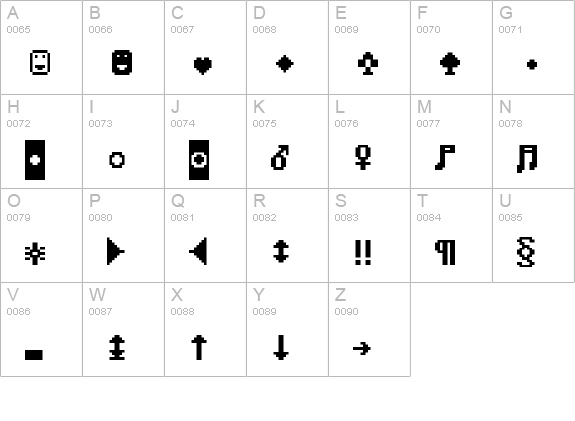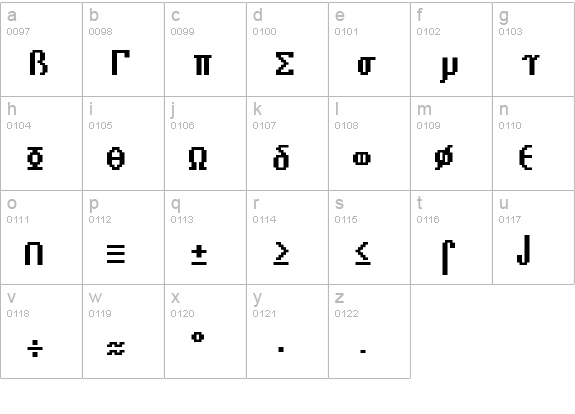
Video Terminal Screen Low Chars Font Details
The Video Terminal Screen Low Chars font is a versatile and stylish typeface that adds a touch of nostalgia to any project. With its sleek, low-resolution design, it hearkens back to the days of classic video game consoles and computer terminals. This font is perfect for those looking to evoke a sense of retro charm or to bring a unique visual element to their designs. The Video Terminal Screen Low Chars font is not only visually appealing, but it is also incredibly functional. Its clean and legible characters make it ideal for use in both digital and print mediums, ensuring that your message is effectively communicated to your audience. Whether you are creating a poster, a website, or a logo, this font will make your text stand out and grab attention. One of the best things about the Video Terminal Screen Low Chars font is that it is freely available to download at FontsMarket.com. This means that you can easily access and use it for any personal or commercial project without having to worry about any licensing restrictions or fees. It's a fantastic opportunity to enhance your designs without any added costs. So why not give your next project a touch of retro flair with the Video Terminal Screen Low Chars font? Download it for free at FontsMarket.com and let your creativity run wild. Whether you're designing a game, creating a vintage-inspired poster, or adding a unique touch to your branding, this font is sure to add that extra something special. Don't miss out on this amazing opportunity to elevate your designs with the Video Terminal Screen Low Chars font.